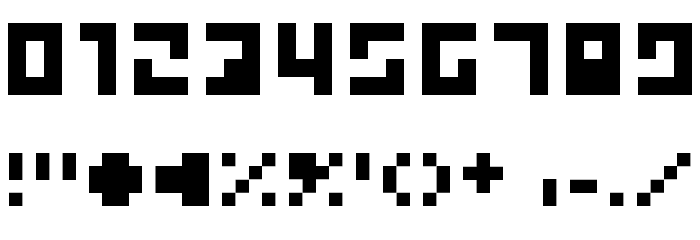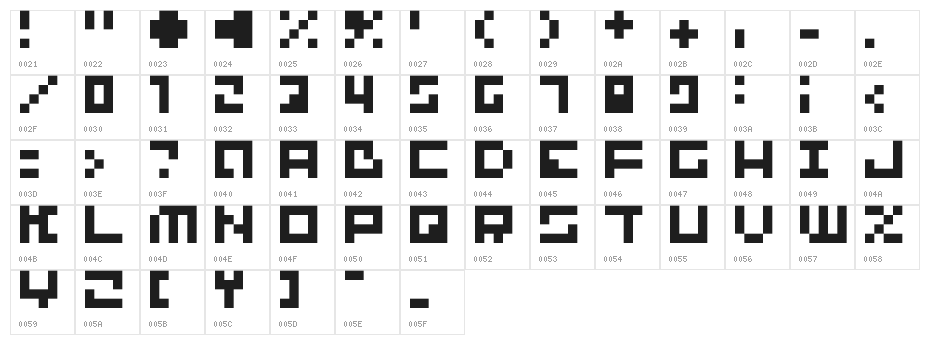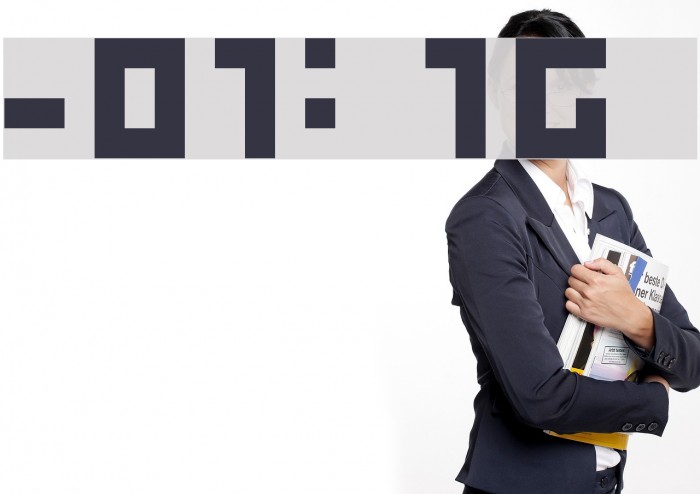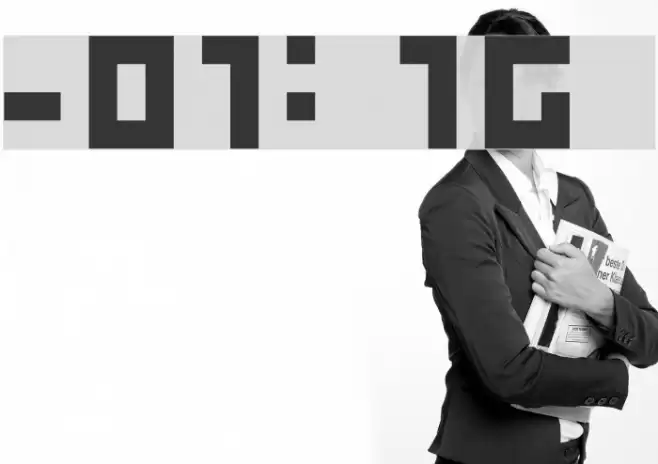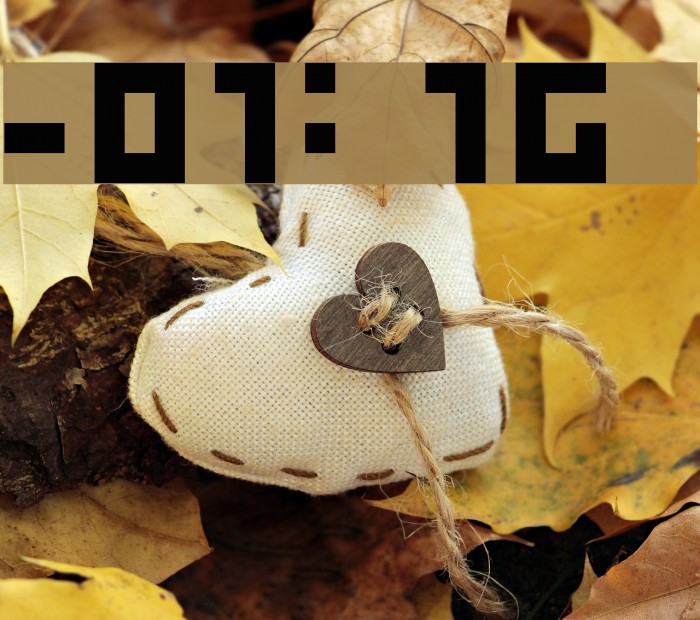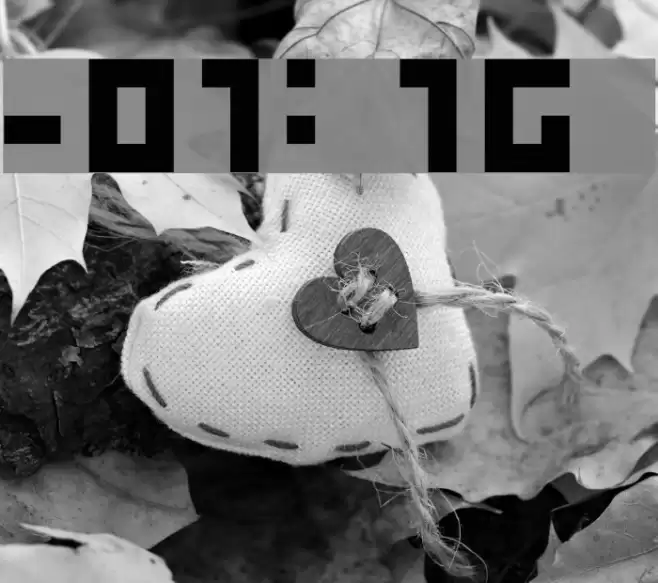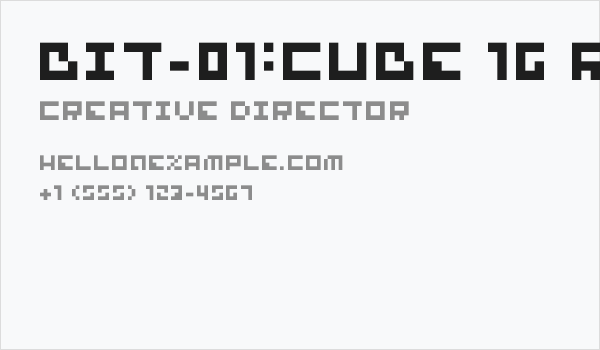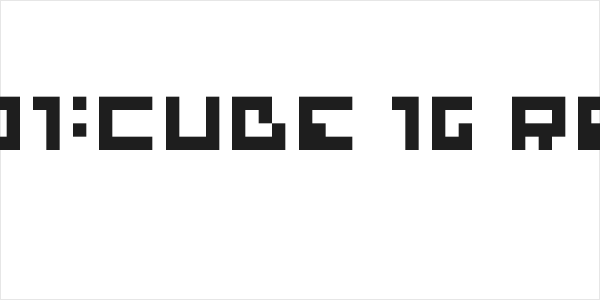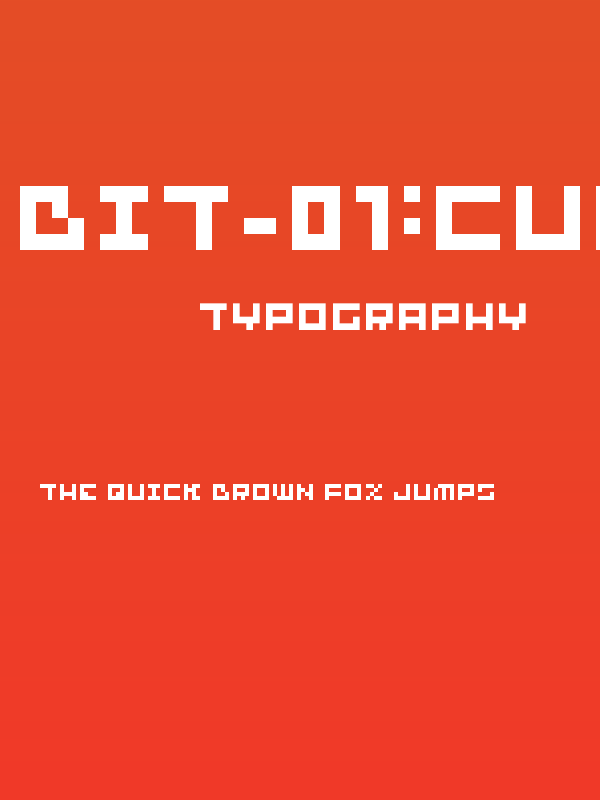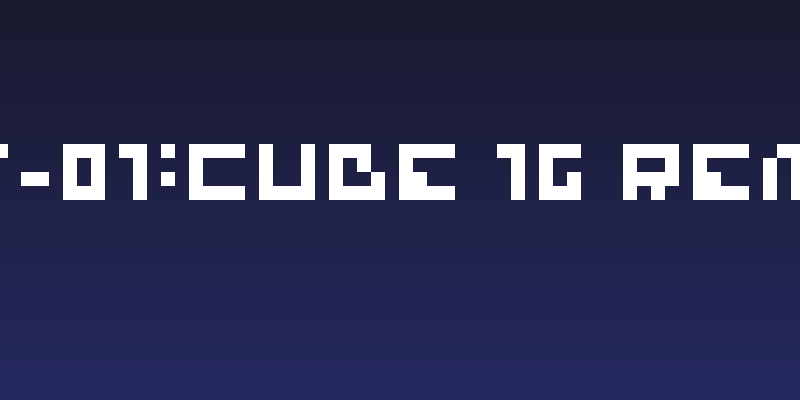
bit-01:cube 16 remix Font
bit-01:cube 16 remix Description
This font features a bold, geometric design with a pixelated, block-like appearance. Each character is constructed with sharp, angular edges, giving it a digital and futuristic feel. The uniformity in height and width across characters creates a cohesive and structured look, reminiscent of early computer graphics or video game aesthetics. The font is highly legible, with clear distinctions between each letter and numeral. Its unique style makes it ideal for projects that aim to evoke a sense of nostalgia or a retro-futuristic vibe.
| Overall Style | Retro, Futuristic |
| Use Case | Logos, Headlines, Digital Art |
| Proposed Projects | Ideal for video game design, tech-themed posters, digital art projects, and retro-style branding. |